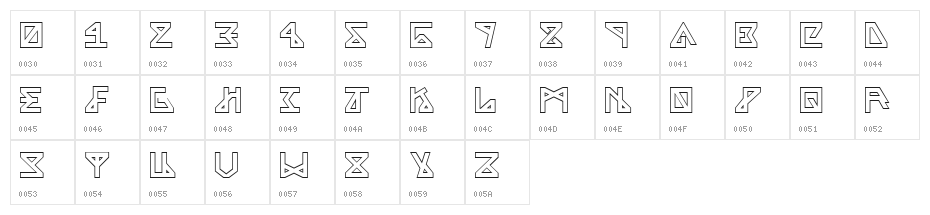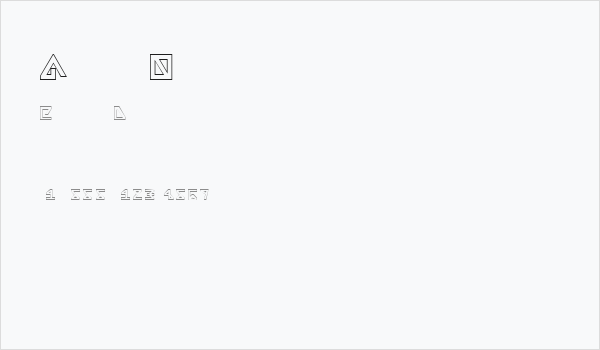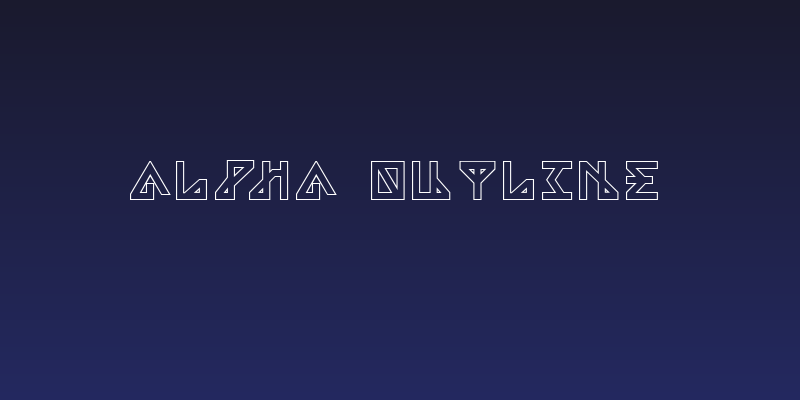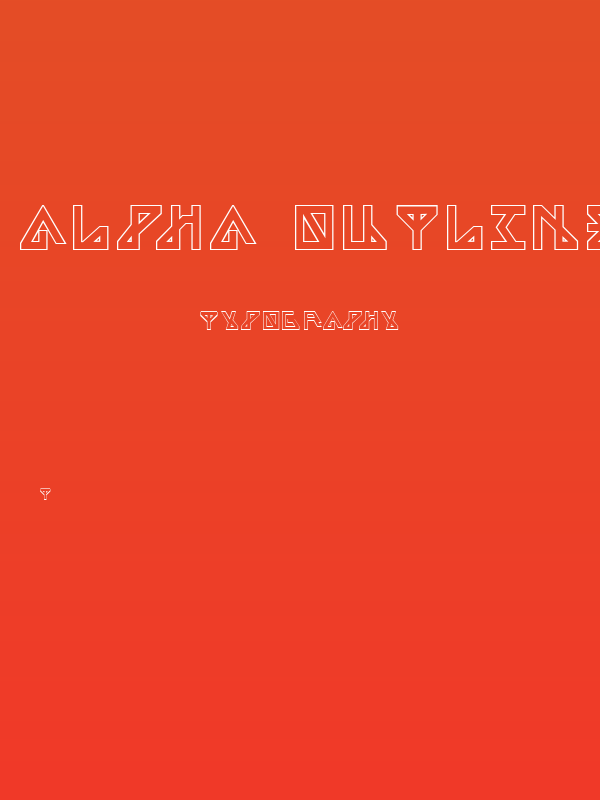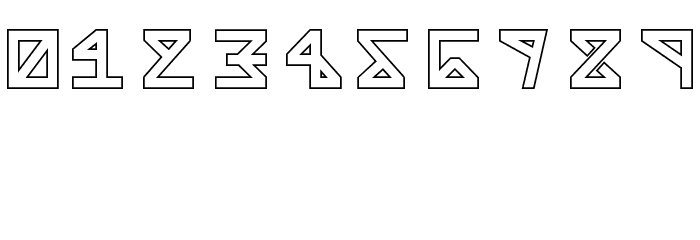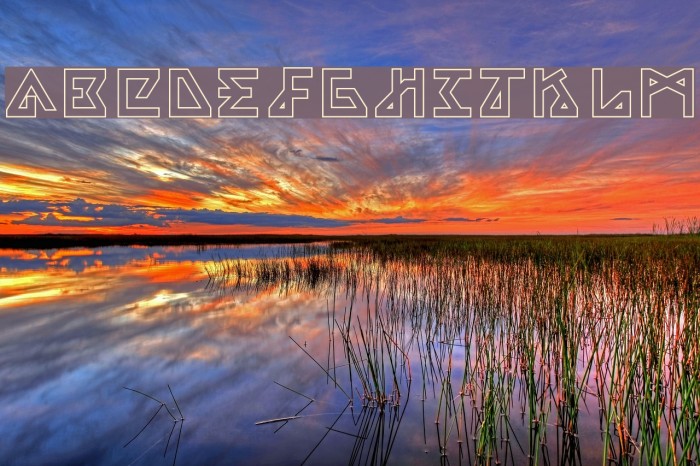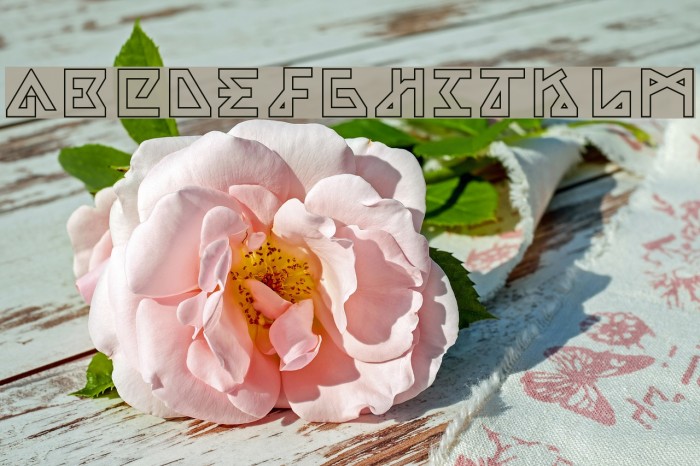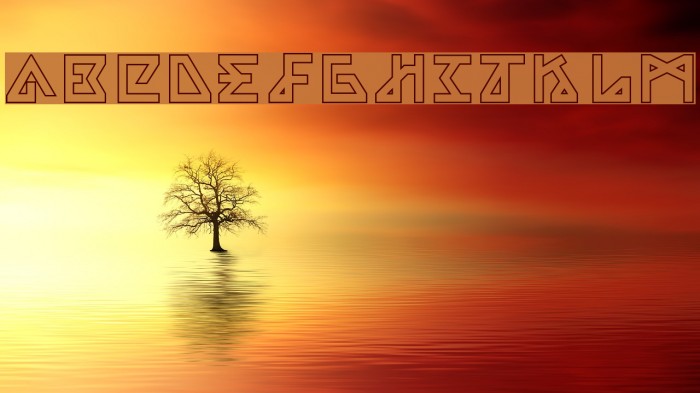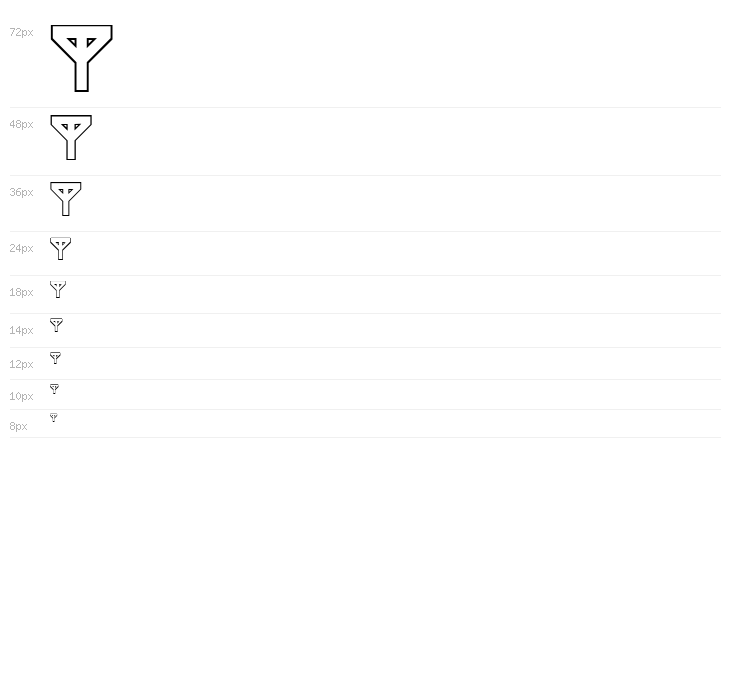
Alpha Outline Font
Alpha Outline Description
This font features a geometric and angular design, with each character outlined to create a bold, striking appearance. The letters and numbers are constructed with sharp lines and distinct angles, giving them a futuristic and edgy feel. The outline style adds a layer of complexity, making the characters appear almost three-dimensional. The font maintains a consistent weight throughout, with uniform line thickness that enhances its modern aesthetic. The spacing between characters is normal, allowing for clear readability while maintaining its unique style. This font is ideal for projects that require a standout, modern look.
| Proposed Projects | Ideal for logos, posters, video game graphics, and sci-fi themed designs. |